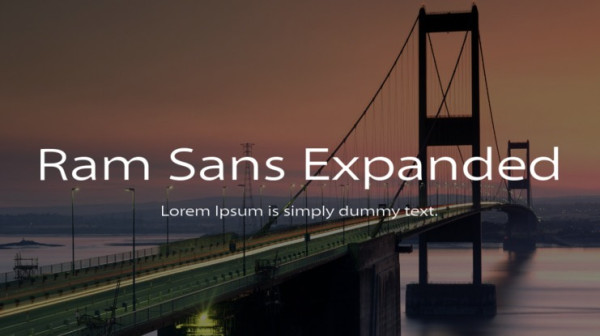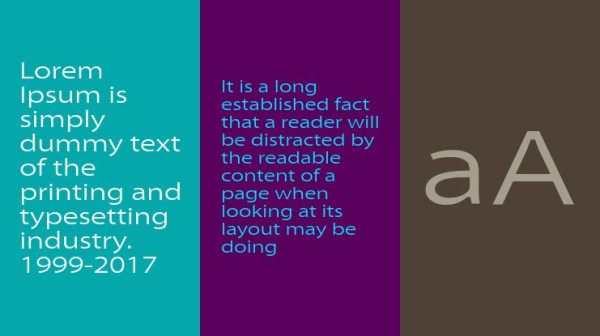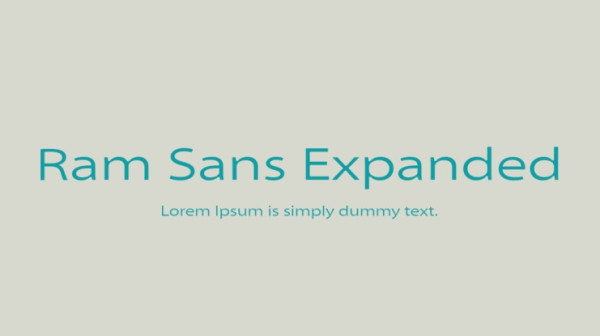
Ram Sans Expanded Font, is a sans serif stunning when combined or separately. This sans serif font style is legible and stunningly designed.
| Designer Name: | Rue Habbal |
| Classification: | Sans Serif Fonts, Style / Aesthetic Fonts |